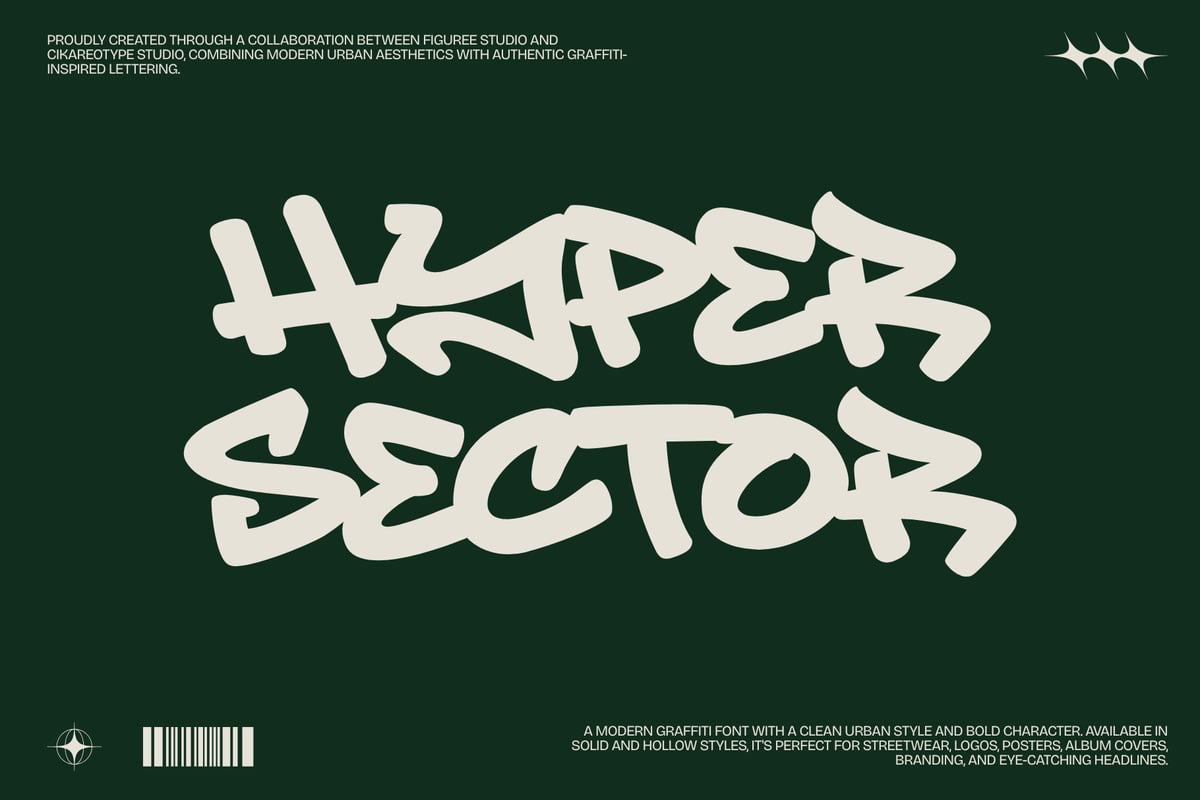
Hyper Sector Outline
Hyper Sector is a modern graffiti display font created for designers who want bold urban typography with a clean, contemporary attitude. Inspired by street lettering, marker tags, and modern city aesthetics, Hyper Sector transforms authentic graffiti energy into a polished typeface that is highly readable while maintaining a strong street-inspired personality. Featuring two complete styles, Regular and Outline, Hyper Sector gives you the flexibility to create layered typography, eye-catching he